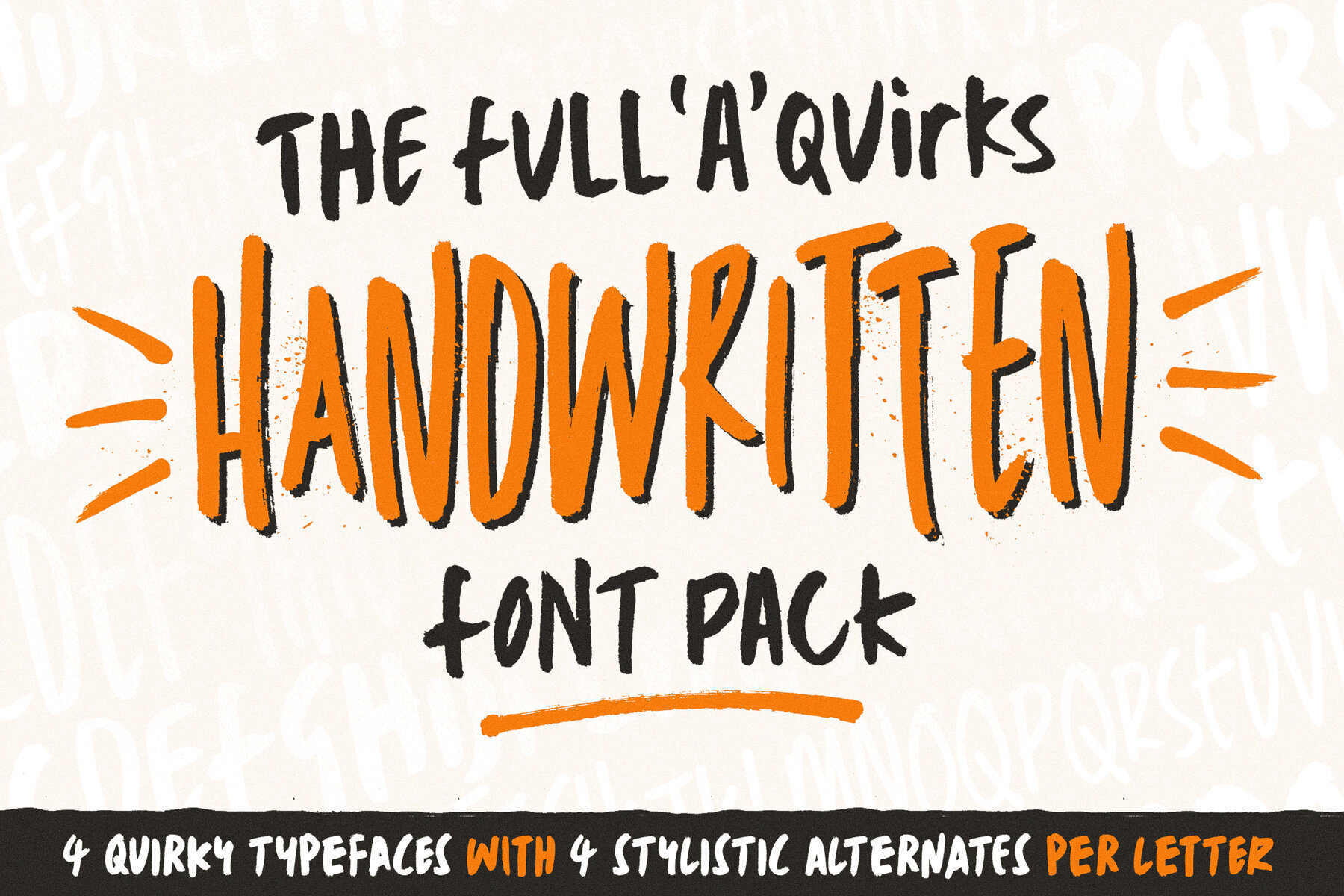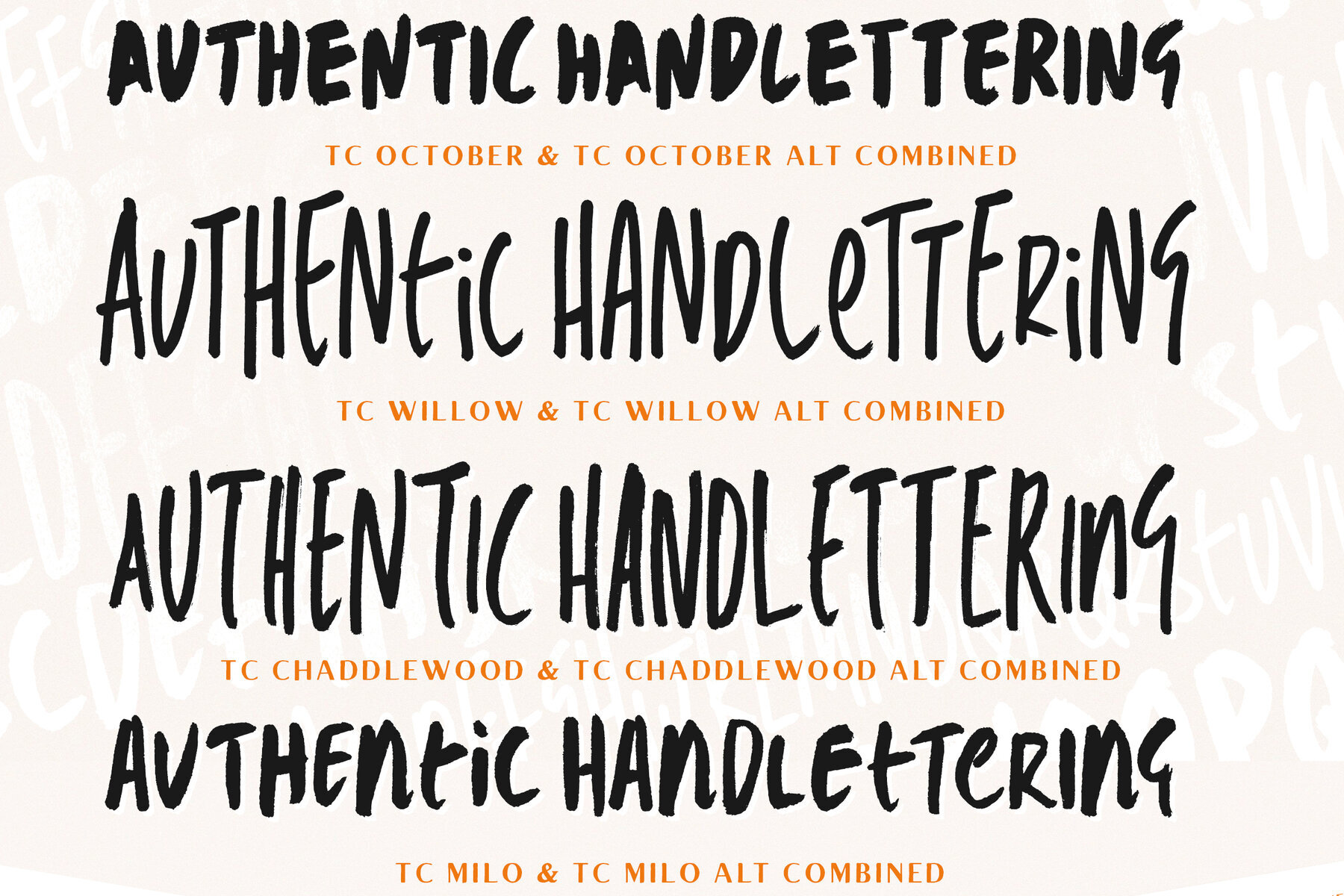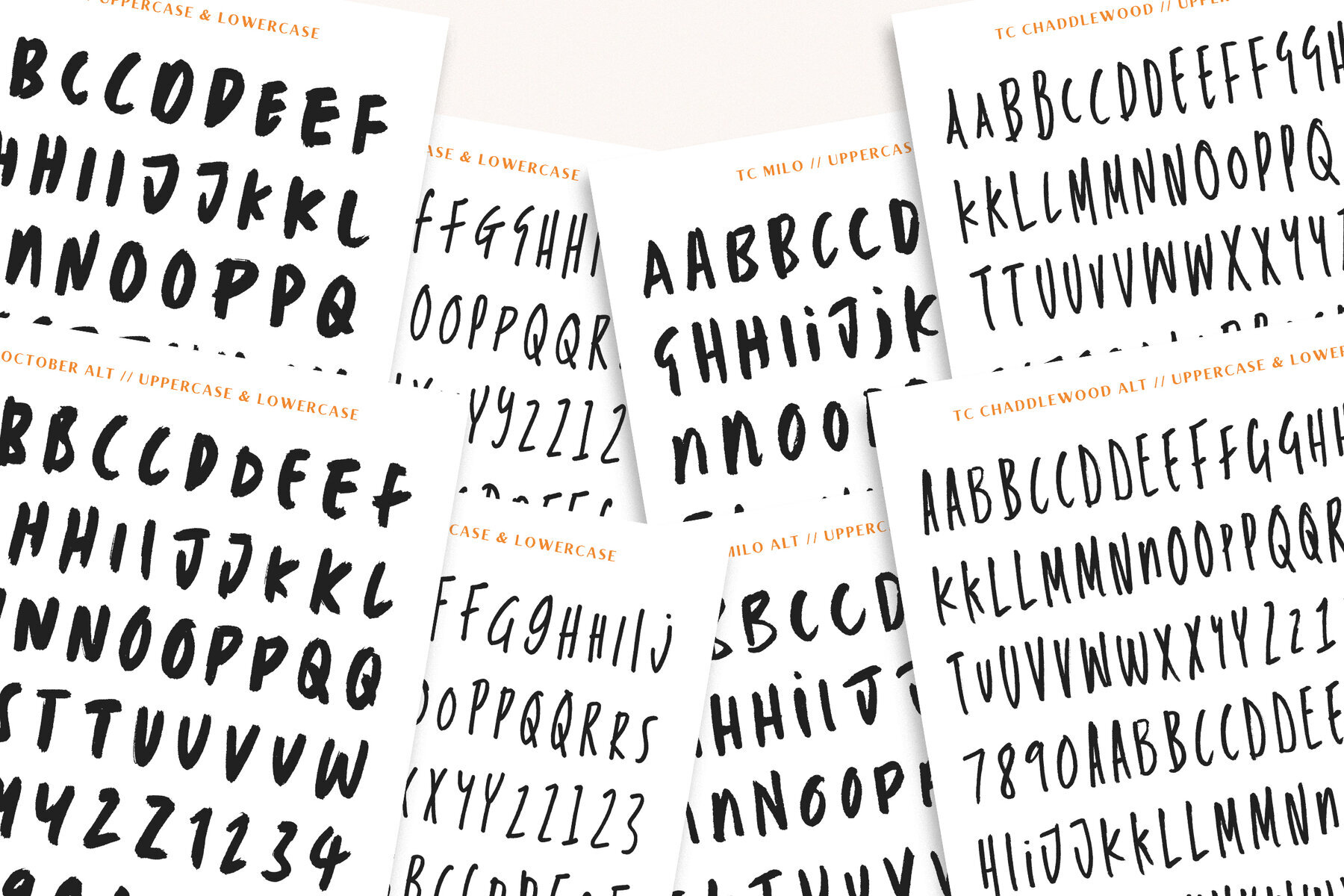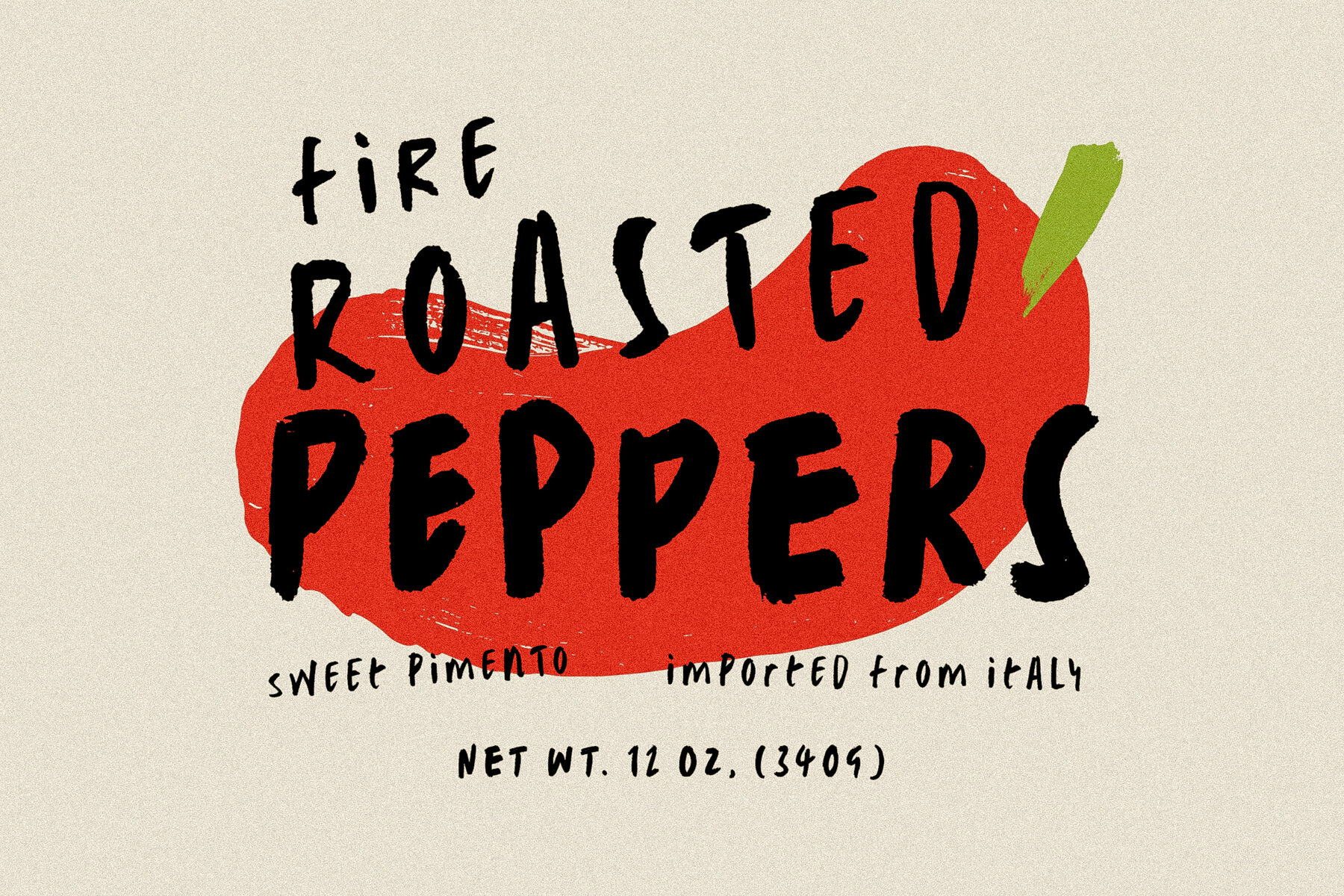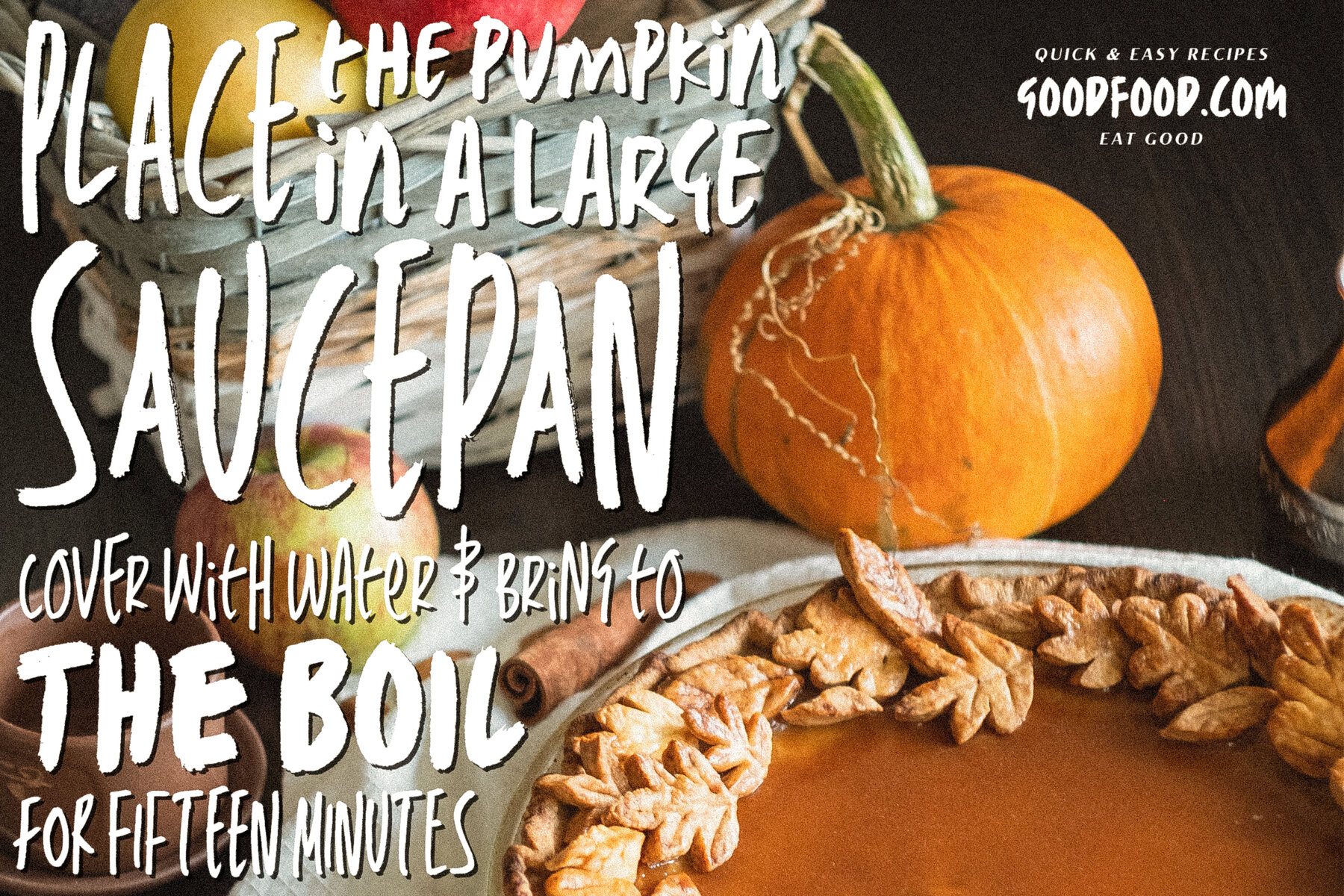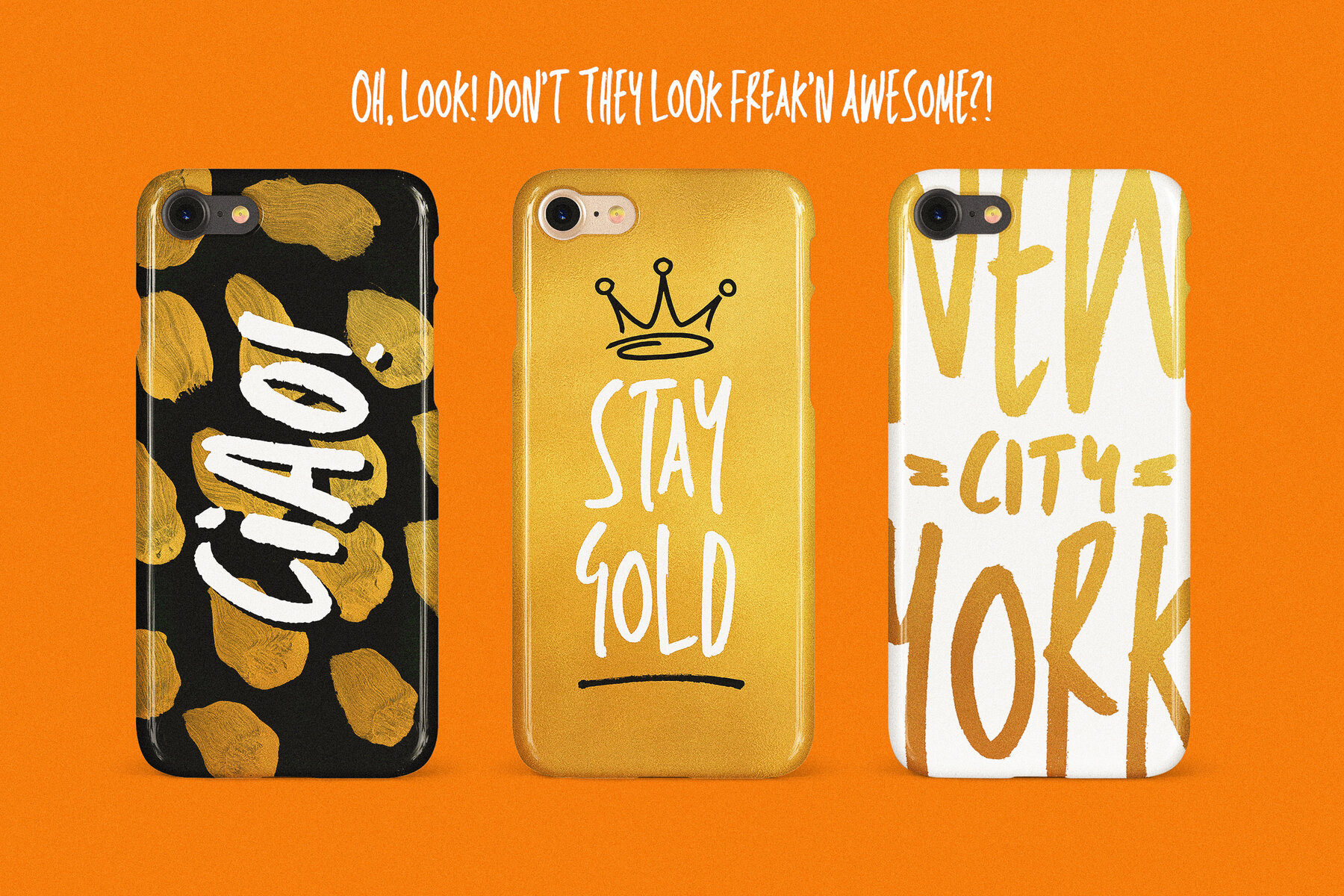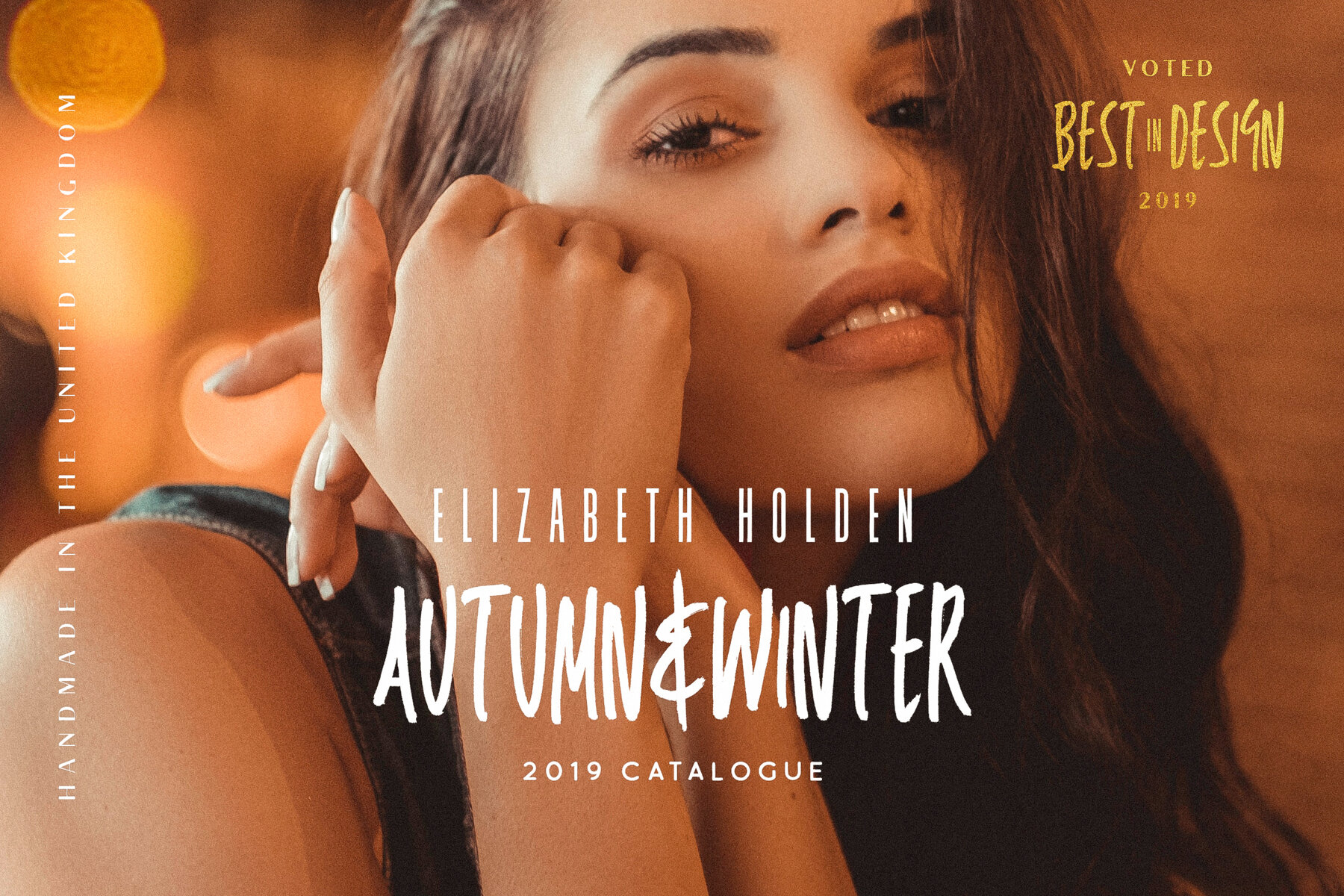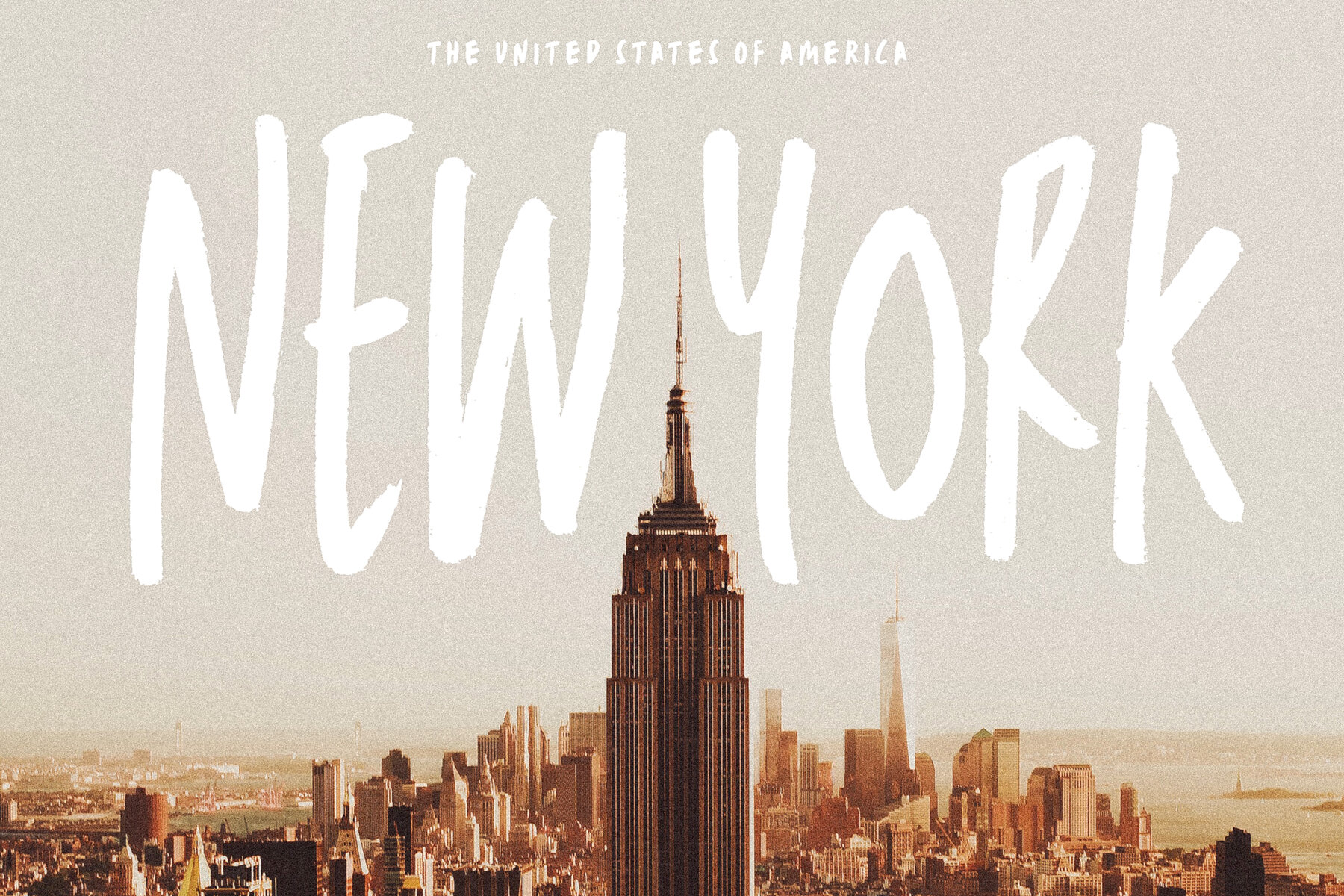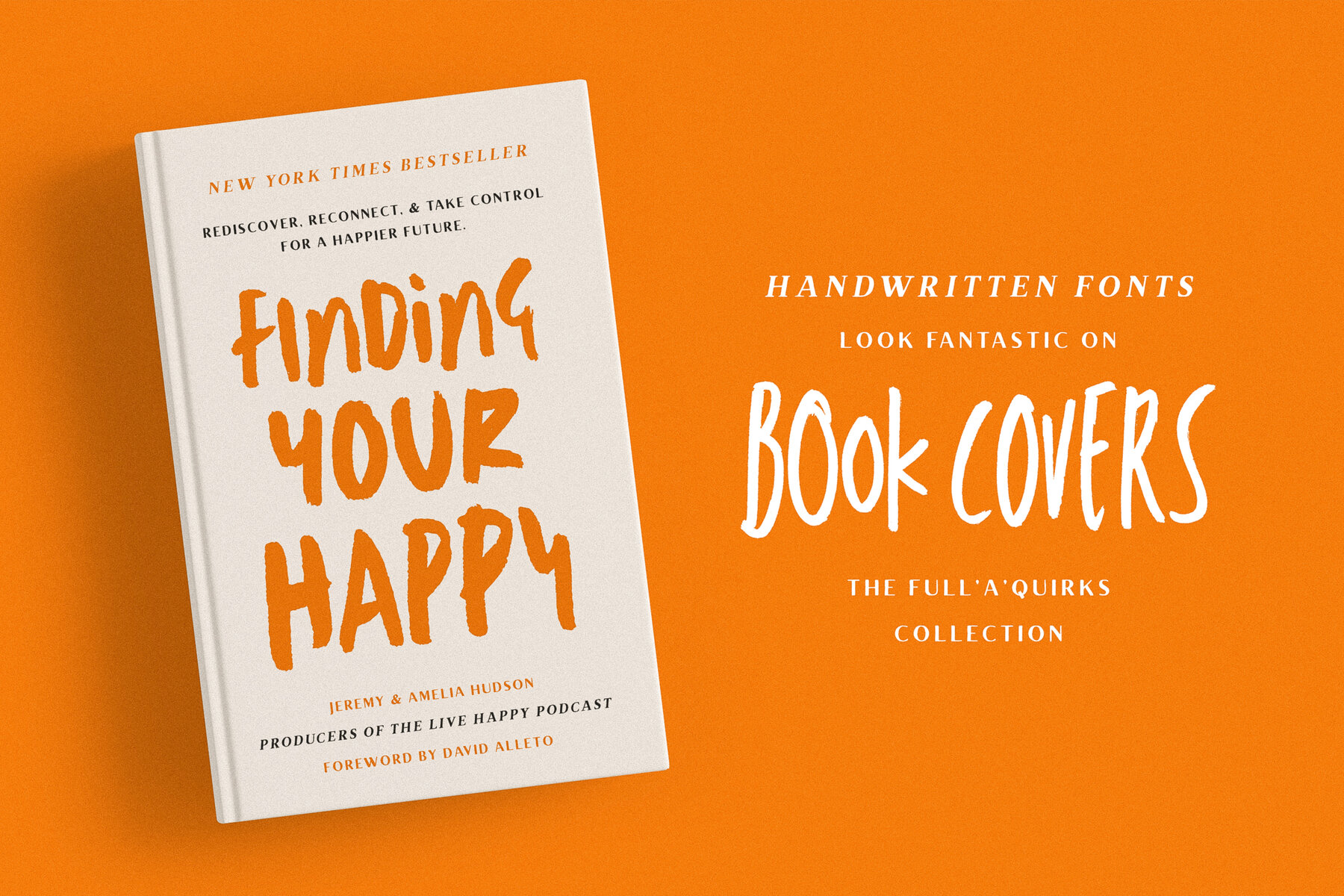
FullAQuirks Handwritten Fonts Pack
TC Chaddlewood Regular
TC Milo Regular
TC October Regular
TC Willow Regular
TC Chaddlewood Alt
TC Milo Alt
TC October Alt
TC Willow Alt
Proudly Introducing The Full'A'Quirks Handwritten Font Pack
Inside you'll discover 4 expressively hand-lettered typefaces, each with 4 unique alternates per letter (A-Z) to help you achieve the perfect authentic look!
Each typeface is stuffed with personality, quirkiness, and versatility. They work fantastically well with one another and modern serif/sans typefaces, across a broad range of design subjects, so be brave and don’t let their jovial appearance hold them/you back!
Before taking on this project, I had set myself the task of creating and launching the collection within 7 days (something that would typically take 4+ weeks), and as you can see, I didn’t sacrifice quality. By adding such a tight deadline, I had no choice but to lob the rulebook out the window and instead of overthinking each letter style and trying to create something authentic. I just did. Truth is, I couldn’t be happier with the end result, and the 7-day deadline will be making many more appearances.
- Multilingual Support!
- 4 Letter Styles for Each Glyph (A-Z)
- Styles have been split between two fonts, making glyph selection much easier and accessible.